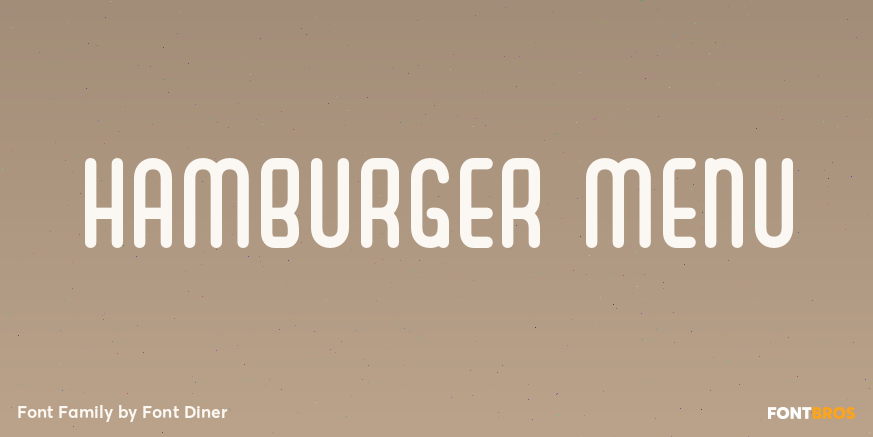
HomeFont BrosArt Deco (1910-1935)Hamburger Menu Art Deco (1910-1935)Sans SerifRetro (1936-1965) Hamburger Menu FacebookXPinterestWhatsApp 1 of 1 About Hamburger Menu Enjoy a thick milkshake with this tall clean Art Deco inspired sans-serif!  DOWNLOAD NOW People also explored Imaginate Link Font Anything Better Font Mars Font Osaka Font Bena Delo Font Lapis Lazuli The Script Pare Font Bellarosta Font JP Sport Stacked Font 299 0 TagsHamburger Menu Font Previous articleEbtekar ProNext articleCognac LEAVE A REPLY Cancel reply Comment: Please enter your comment! Name:* Please enter your name here Email:* You have entered an incorrect email address! Please enter your email address here Website: Save my name, email, and website in this browser for the next time I comment. Personal Use Free Gunplay Personal Use Free Read more about this font The Brighton Personal Use Free Read more about this font Abuget Free Script Personal Use Free Read more about this font Written by Hand Personal Use Free Read more about this font BLOG Free vs Paid Fonts: Why Investing in Premium Fonts Is Worth It Free vs Paid Fonts: Why Premium Fonts Are Worth It in 2025 The debate of free vs paid fonts continues in the design world. While... 5 Fonts That Will Dominate Design Trends in 2026 Fonts That Capture the Spirit of New York City Modern Sans-Serif Fonts That Brands Love in 2025